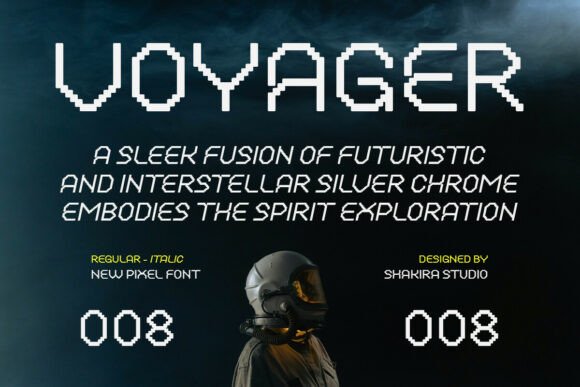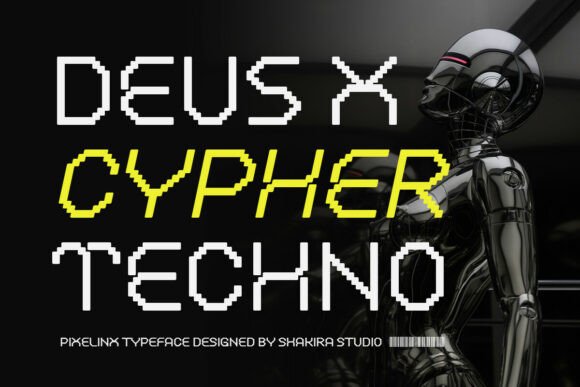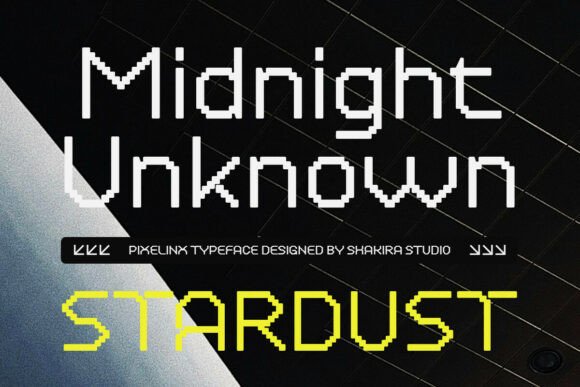
Introduction to Pixelinx Font
Pixelinx is a futuristic pixel display font crafted for digital-era creatives.
Designed with pixel-perfect precision, this typeface blends retro gaming vibes with modern tech energyβ€”making it ideal for UI design, esports branding, YouTube thumbnails, techwear fashion, or digital products that crave a cyberpunk edge .
Key Features of Pixelinx Font
Why Choose Pixelinx Font?